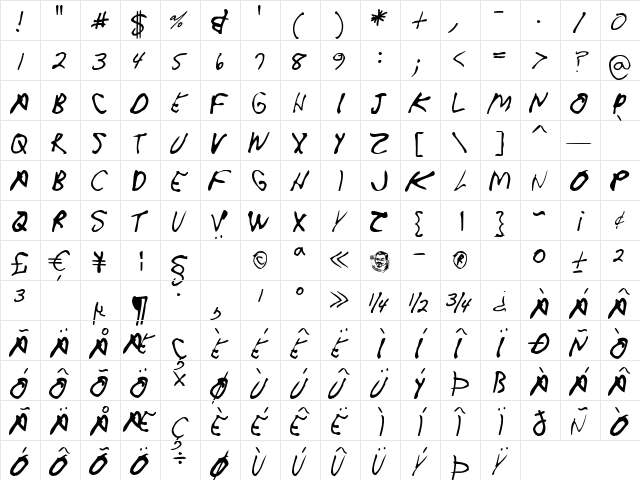
CrappyDanAllCaps Regular Font Preview
CrappyDanAllCaps Regular
CrappyDanAllCaps Regular Font Details
Design Context for CrappyDanAllCaps Typeface
CrappyDanAllCaps is a composed and adaptable typeface that performs quietly and consistently across a wide range of design contexts.